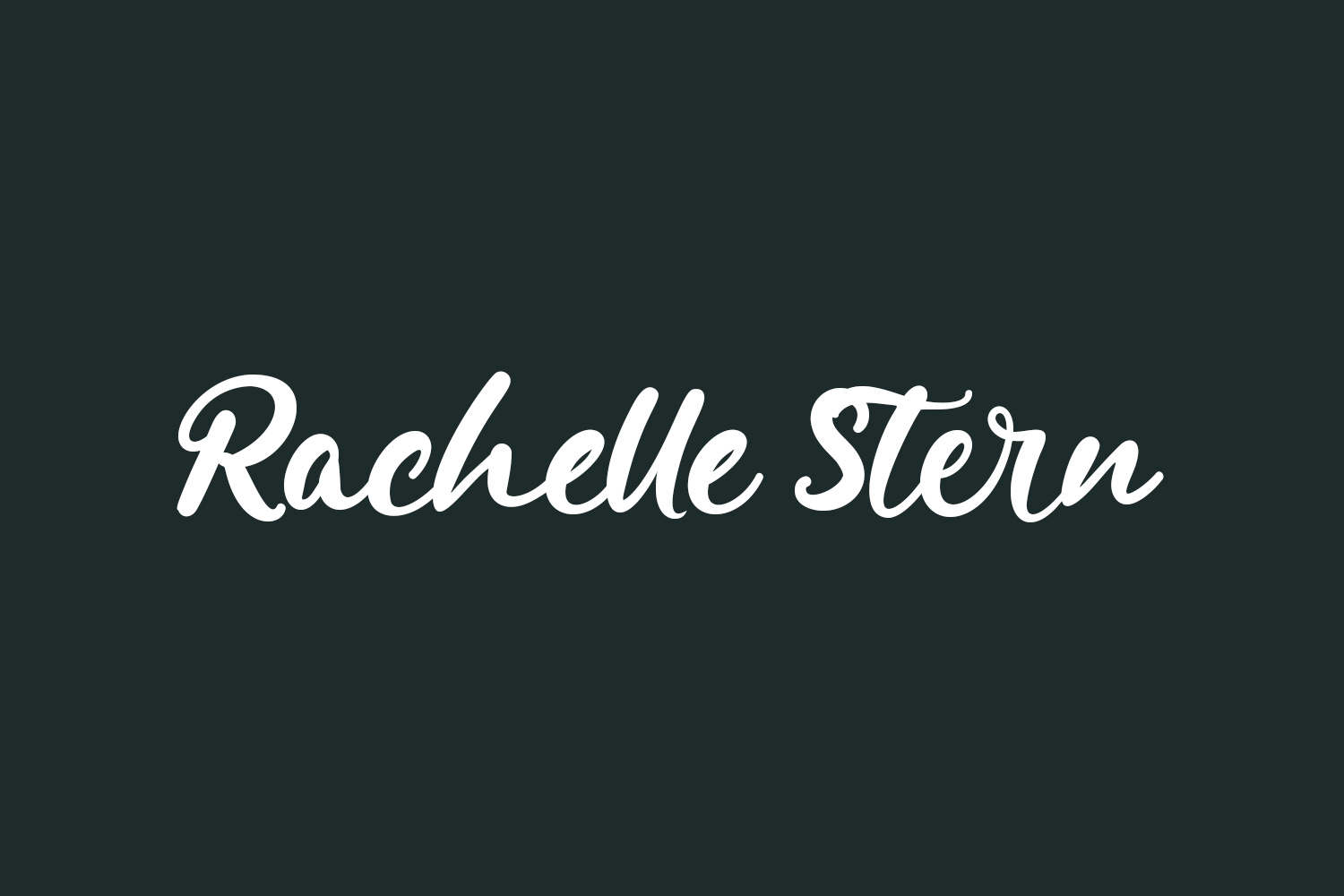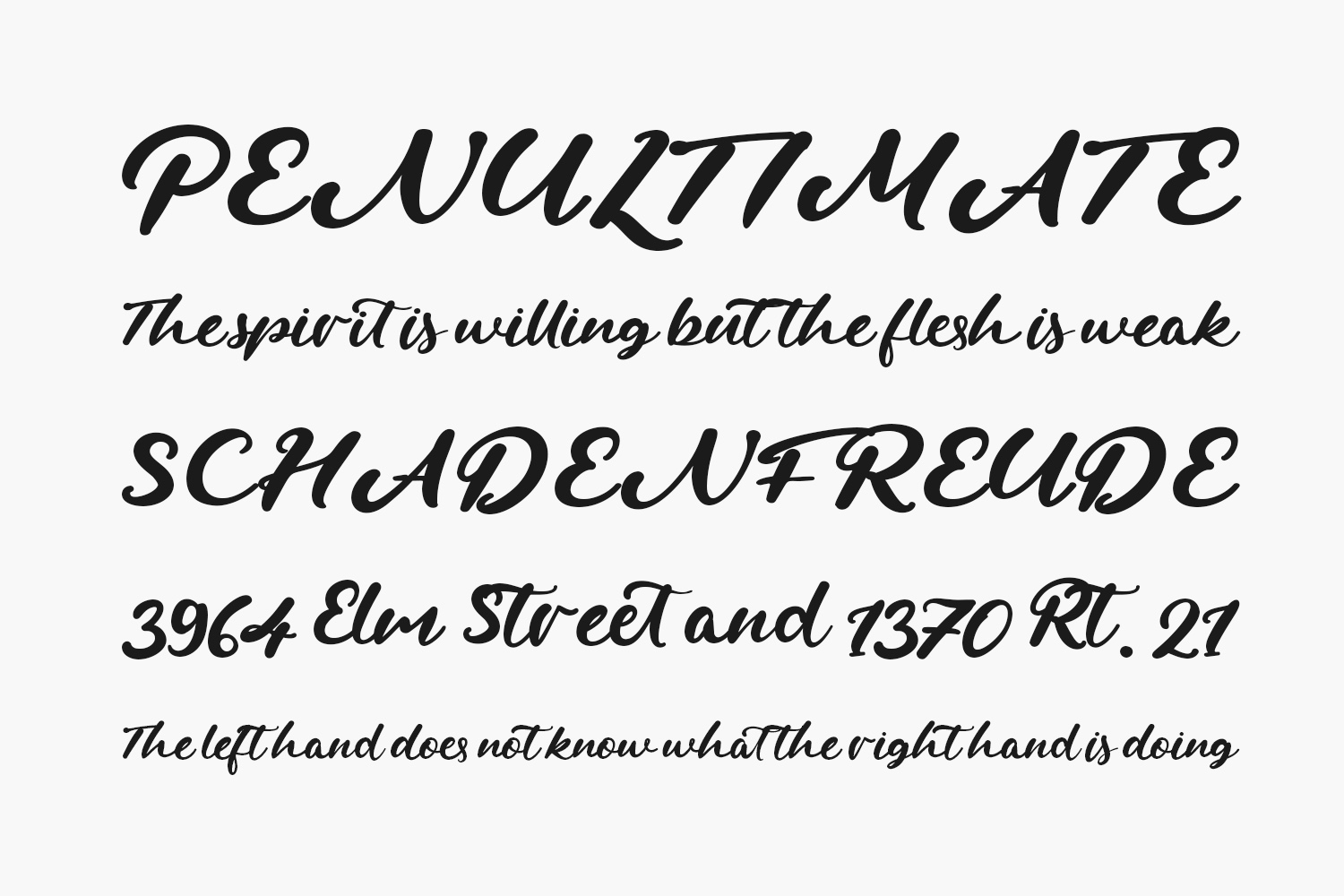
Rachelle Stern Free Font is a modern and playful script font. It’s great for crafters and designers. Rachelle Stern Free Font was designed by Kong Font and is free for personal use only. Please purchase the full version for commercial use.